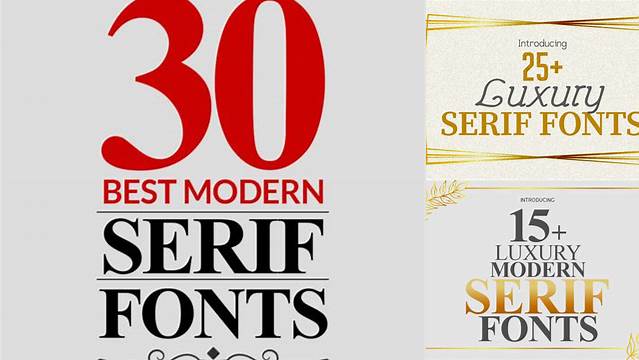
Top Serif Fonts For Graphic Designers: A Comprehensive Guide
Serif fonts, with their classic and elegant letterforms, are a staple in the world of graphic design. They evoke a sense of tradition, authority, and readability, making them ideal for a wide range of projects, from branding and editorial design to web typography and print materials. Choosing the right serif font can significantly impact the overall aesthetic and message of your design. In this article, we'll explore some of the best serif fonts that every graphic designer should have in their toolkit. We'll delve into what makes each font unique, its ideal use cases, and why it stands out in the vast world of typography. So, whether you're a seasoned designer or just starting out, get ready to discover some timeless and versatile serif fonts that will elevate your work.
What are the best serif fonts for graphic designers?
Serif fonts are characterized by the small decorative strokes, known as serifs, that extend from the main strokes of a letter. These fonts are often associated with traditional and formal designs, lending a touch of sophistication and readability. For graphic designers, having a well-curated selection of serif fonts is essential for creating visually appealing and effective designs. Let's dive into some of the top choices that can enhance your creative projects.
Times New Roman
Times New Roman is arguably one of the most recognizable serif fonts in the world. Designed in 1931 for The Times newspaper, it was created with the intention of maximizing readability in a compact space. Times New Roman features a high x-height, short ascenders and descenders, and a sturdy, balanced structure. Its widespread use has made it a familiar and comfortable choice for readers, though some designers might consider it overused. However, its versatility and legibility make it a reliable option for body text in books, articles, and formal documents. The clean lines and classic appearance of Times New Roman also lend themselves well to more traditional or conservative designs, where conveying a sense of authority and trustworthiness is paramount. While it may not be the most exciting or innovative font, Times New Roman's timeless quality ensures its continued relevance in the world of typography.
Garamond
Garamond is a group of old-style serif typefaces named for the Parisian printer Claude Garamond. Dating back to the 16th century, Garamond exudes elegance and sophistication with its delicate serifs and graceful curves. This font is prized for its readability and is often used in book design and high-end print materials. Garamond's slightly condensed letterforms and refined details make it a visually appealing choice for setting long passages of text. Its timeless quality ensures that designs incorporating Garamond have a classic and sophisticated feel. For designers seeking a font that embodies tradition and refinement, Garamond remains an excellent choice.
Baskerville
Baskerville is a transitional serif typeface designed in the 1750s by John Baskerville. Known for its sharp contrast between thick and thin strokes, and its refined serifs, Baskerville represents a significant step towards the modern serif fonts we use today. Baskerville is often praised for its elegance and readability, making it a popular choice for books, magazines, and corporate branding. Its balanced letterforms and clear structure lend a sense of sophistication and authority to any design. Whether used for headlines or body text, Baskerville brings a touch of class and refinement that is hard to match. Its enduring appeal makes it a staple in any designer's font library.
Bodoni
Bodoni is a serif typeface designed by Giambattista Bodoni in the late 18th century. Characterized by its extreme contrast between thick and thin strokes, and its unbracketed serifs, Bodoni exudes a sense of drama and elegance. This font is often used in headlines, fashion magazines, and high-end branding, where its striking appearance can make a bold statement. Bodoni's strong visual impact makes it less suitable for long passages of text, but it excels in creating eye-catching titles and logos. Its distinctive style brings a touch of luxury and sophistication to any design, making it a favorite among designers seeking to create a memorable impression.
Playfair Display
Playfair Display is a transitional serif typeface designed by Claus Eggers Sørensen. Inspired by the style of lettering prevalent in the late 18th century, Playfair Display is intended for use in headings and titles. Its high contrast and delicate hairlines give it an elegant and refined appearance. Playfair Display works well in designs that require a touch of sophistication and is particularly suited for use in magazines, websites, and branding materials. Its tall x-height and clear letterforms ensure readability, even at smaller sizes. Whether used sparingly or as a dominant design element, Playfair Display adds a touch of class to any project.
Merriweather
Merriweather is a serif typeface designed by Sorkin Type. It was specifically designed to be readable on screens, making it an excellent choice for web design. Merriweather features a large x-height, slightly condensed letterforms, and sturdy serifs, all of which contribute to its legibility. Merriweather is a versatile font that works well for both headings and body text, making it a practical choice for websites, blogs, and online publications. Its friendly and approachable appearance makes it a popular choice among designers seeking a font that is both functional and aesthetically pleasing.
Libre Baskerville
Libre Baskerville is a web-optimized version of the classic Baskerville typeface, designed by Impallari Type. It offers the same elegance and readability as the original, but with improved rendering on screens. Libre Baskerville is a great choice for websites, blogs, and online publications that require a touch of sophistication. Libre Baskerville's balanced letterforms and clear structure make it easy to read, even at smaller sizes. Whether used for headlines or body text, Libre Baskerville brings a touch of class and refinement to any online design.
Didot
Didot is a group of serif typefaces that originated in France in the late 18th century. Characterized by their high contrast between thick and thin strokes, and their refined, elegant appearance, Didot fonts are often associated with luxury and high fashion. They are frequently used in magazine layouts, branding, and advertising. Didot's distinctive style makes it ideal for creating eye-catching headlines and logos. However, due to its delicate hairlines, it may not be the best choice for long passages of text, especially in print. When used effectively, Didot can add a touch of sophistication and glamour to any design project.
In conclusion, serif fonts are an indispensable tool for graphic designers. Their classic elegance and readability make them suitable for a wide range of projects. From the timeless appeal of Times New Roman to the modern sophistication of Playfair Display, there's a serif font to suit every design need. By understanding the unique characteristics of each font and considering the specific requirements of your project, you can make informed decisions that elevate your work. So, explore these options, experiment with different combinations, and discover the perfect serif font to bring your creative vision to life. Happy designing, folks!